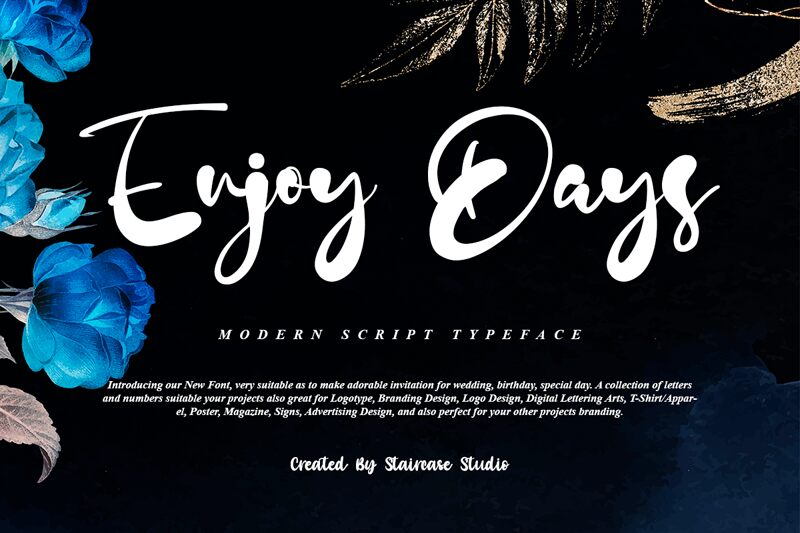
Enjoy Days
Looking for a font that exudes elegance and sophistication? Look no further than Enjoy Days, the latest offering from Staircase Studio. With its modern script style, this font is perfect for a wide range of projects, from wedding invitations and event programs to branding materials and social media graphics. Its flowing lines and graceful curves will add an air of refinement to any design, while its versatility makes it suitable for everything from formal affairs to casual get-togethers. So why wait? Try Enjoy Days today and discover the difference a truly exceptional font can make!